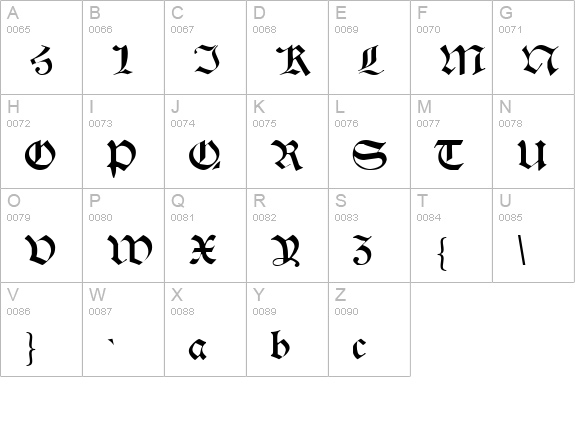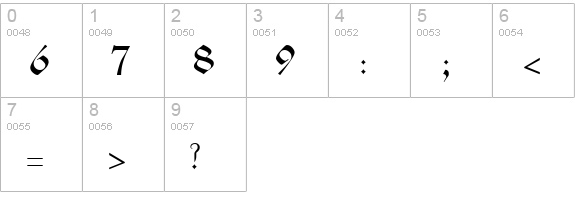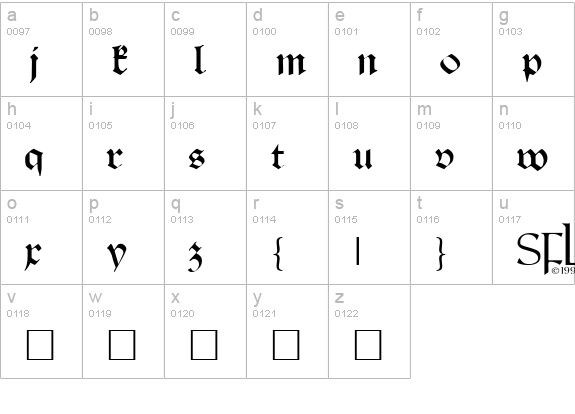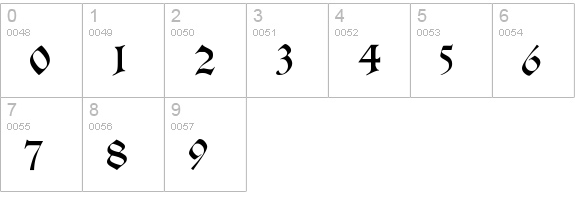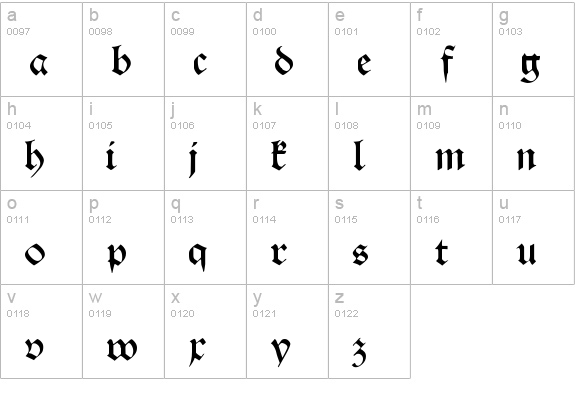
Theodoric Font Details
Theodoric font is a stunning display typeface that exudes elegance and sophistication. With its clean lines and sharp edges, this font is perfect for creating captivating headlines, branding materials, and eye-catching designs. Theodoric font strikes the perfect balance between modernity and classic appeal, making it a versatile choice for a wide range of projects. What sets Theodoric font apart is not only its exquisite design, but also the fact that it is freely available to download at FontsMarket.com. This means that designers and enthusiasts alike can enjoy the beauty and versatility of Theodoric font without any cost. Whether you are a professional designer looking to add a touch of refinement to your work or an individual seeking to elevate your personal projects, Theodoric font is the ideal choice. Theodoric font's distinct characters are meticulously crafted to ensure legibility and visual impact. Its generous spacing and balanced proportions make it easy to read, even at smaller sizes, while still commanding attention when used in larger formats. Theodoric font's versatility extends beyond its use in print materials, as it is also well-suited for digital applications, such as websites, social media graphics, and digital ads. Theodoric font's extensive character set includes uppercase and lowercase letters, numerals, punctuation marks, and a wide range of special characters, allowing for seamless integration into various design projects. Its timeless appeal and attention to detail make Theodoric font a go-to choice for those seeking a font that effortlessly elevates their designs. Whether you are designing a logo, creating a poster, or crafting an invitation, Theodoric font is sure to leave a lasting impression. Download this exceptional font for free at FontsMarket.com and unlock its full potential to enhance your creative projects. With Theodoric font, you can bring a touch of sophistication and elegance to your designs without any cost or compromise.